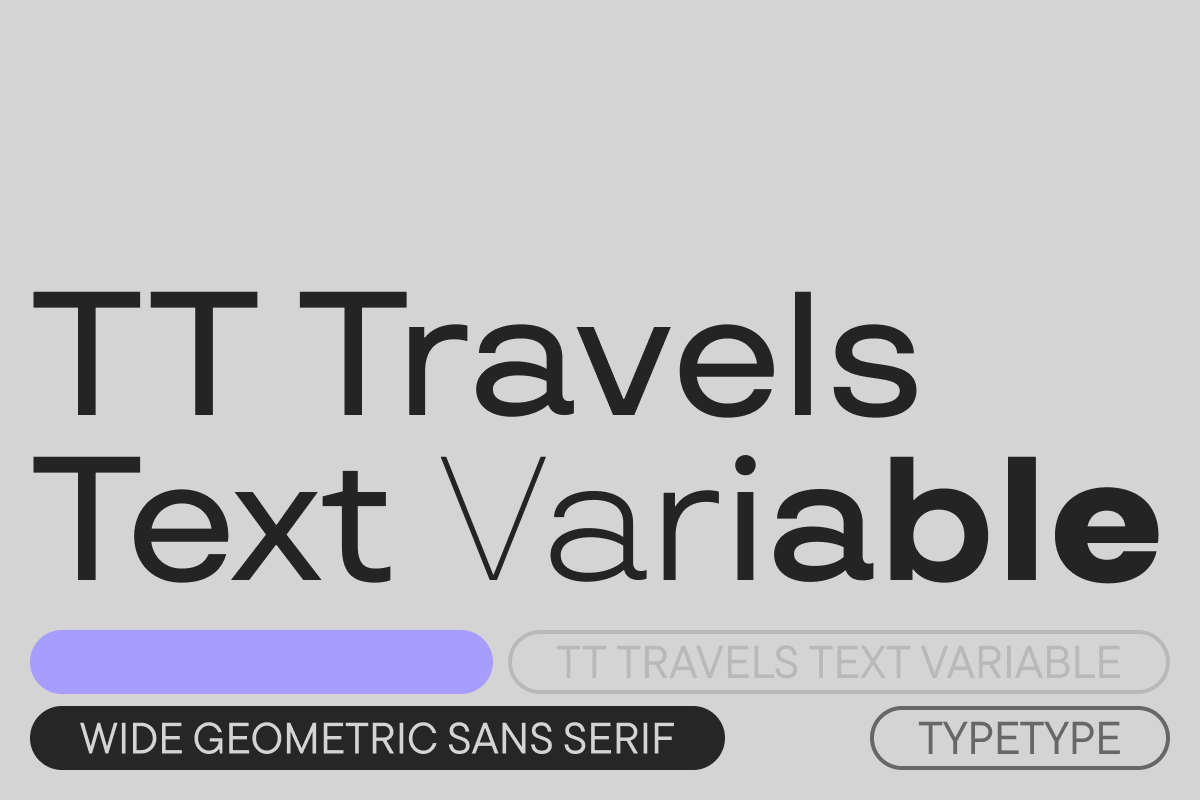
TT Travels Text VF
TT Travels Text is a geometric sans serif with wide proportions. When creating this font, our goal was to maintain the central idea and recognizable features of the familiar TT Travels, making it cleaner and more modern. As a result, we have an independent typeface that perfectly complements TT Travels Next as a pair and equally excels in solo work. The key visual features of TT Travels Text are wide proportions and slightly squared forms of ovals.